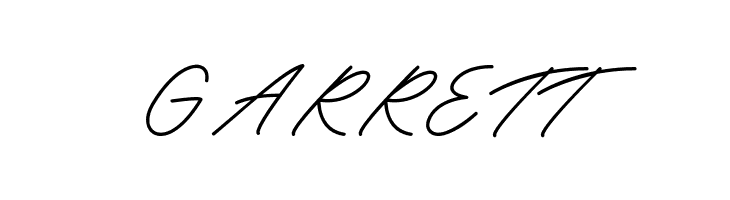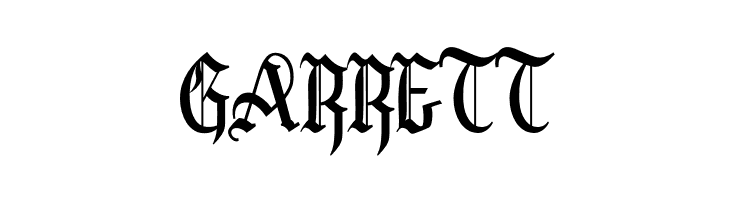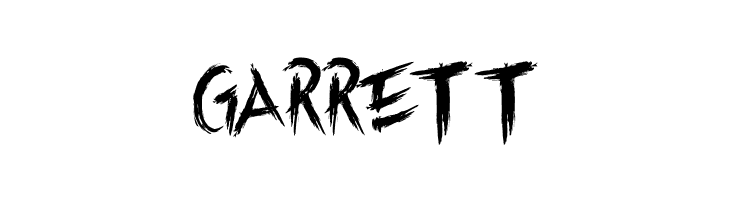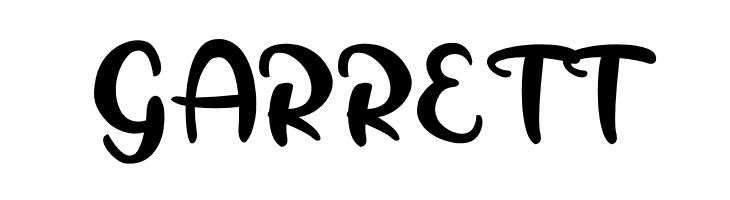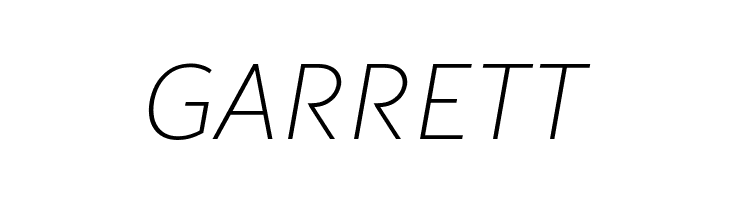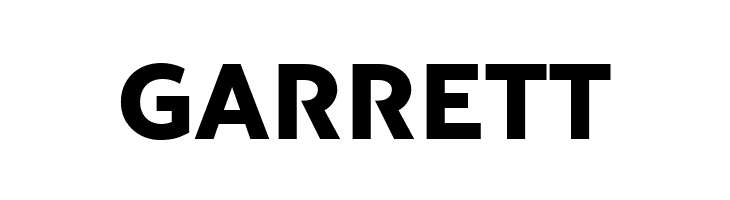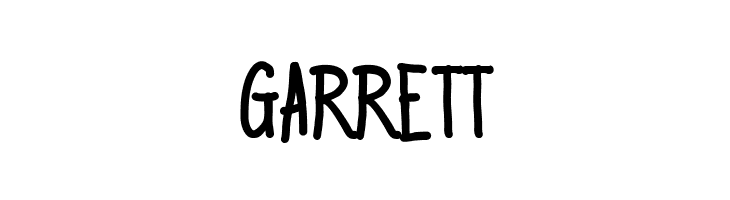
An ornate and decorative font with elongated serifs and intricate details.
A cursive, handwritten-style font with elegant, flowing letters.
A playful, bold script font with a handwritten touch.
A bold, playful handwritten font with a lively and casual style.
A bold, gothic Blackletter font with intricate and ornate detailing.
A bold, high-contrast Blackletter font with intricate, medieval-inspired designs.
A bold, jagged, and aggressive font with a hand-drawn, brush-like appearance.
A bold, modern sans-serif font with strong, clean lines and excellent readability.
A sleek, modern font with thin strokes and a slight slant for a dynamic look.
A bold, textured font with a rugged, handcrafted appearance.